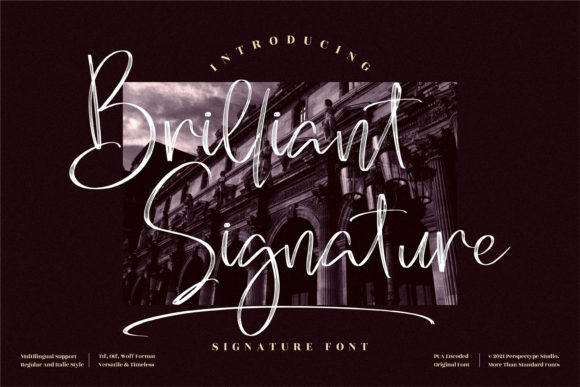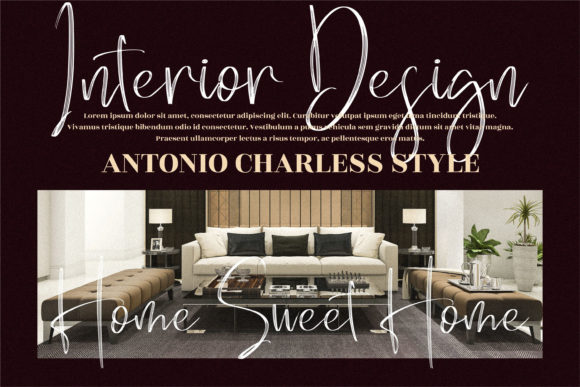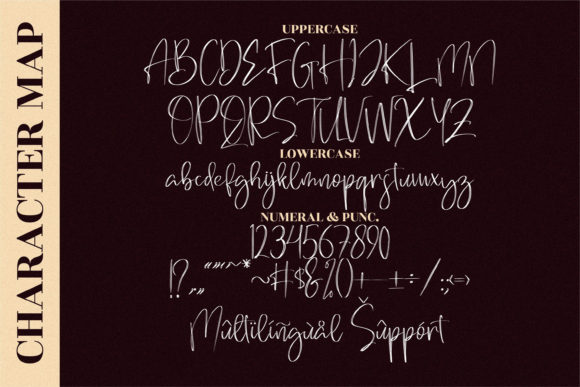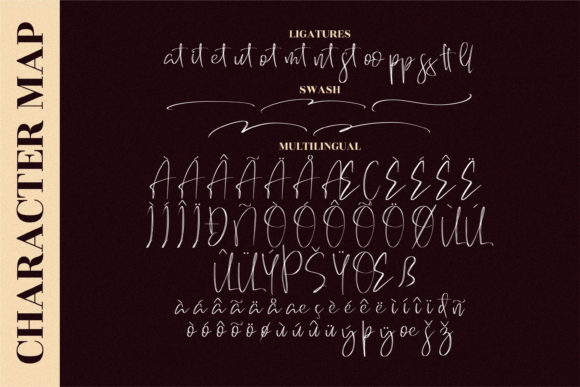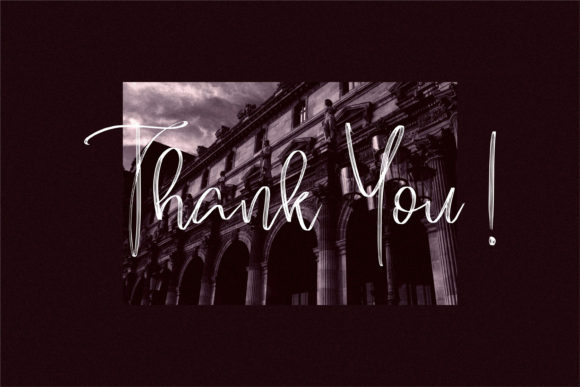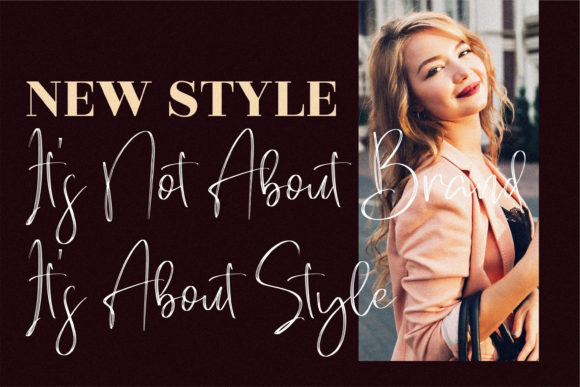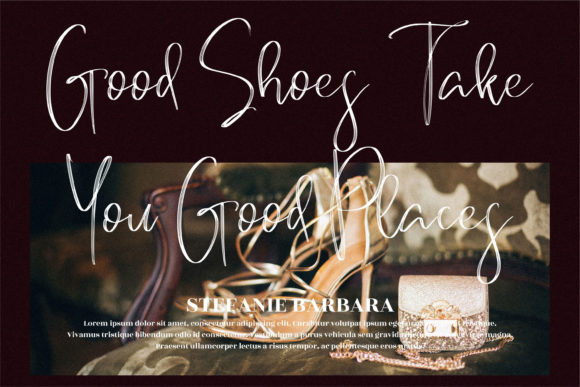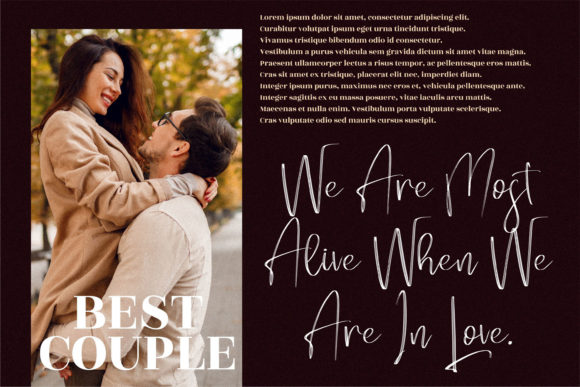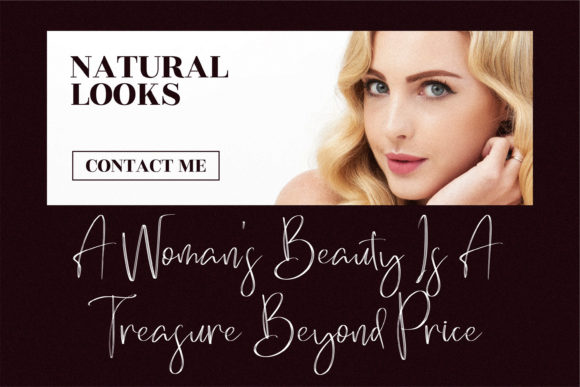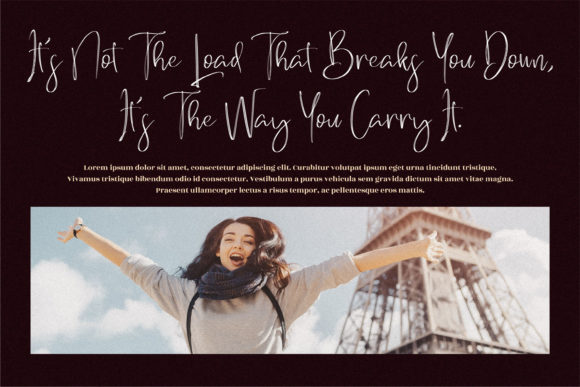
Brilliant Signature Font
About Brilliant Signature Font
Brilliant Signature is a delicate, thin and refined script font. It has a classy, elegant and modern look that can be used for logos, branding, invitations, stationery, wedding designs, social media posts, and much more!